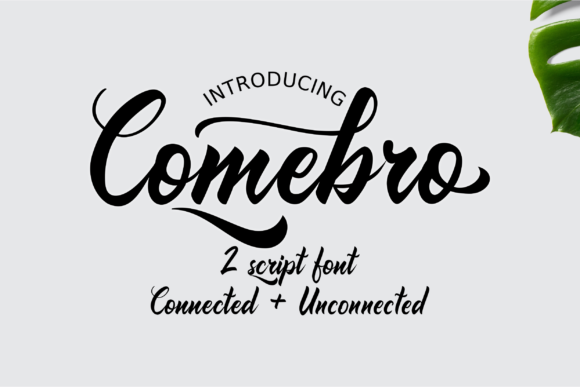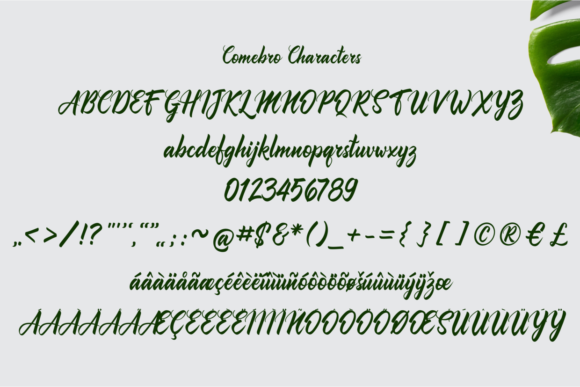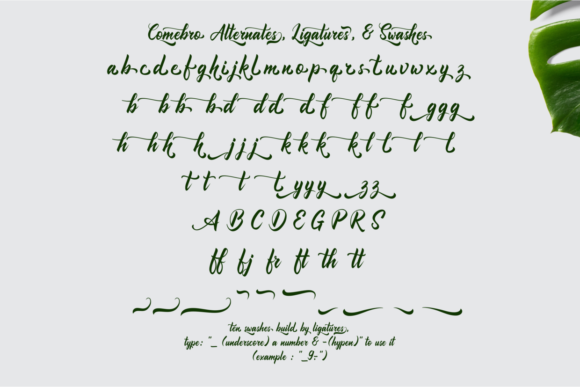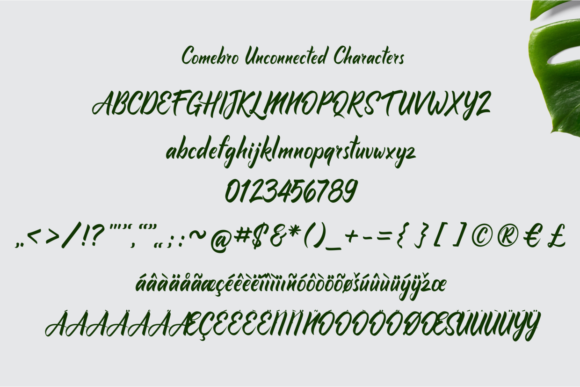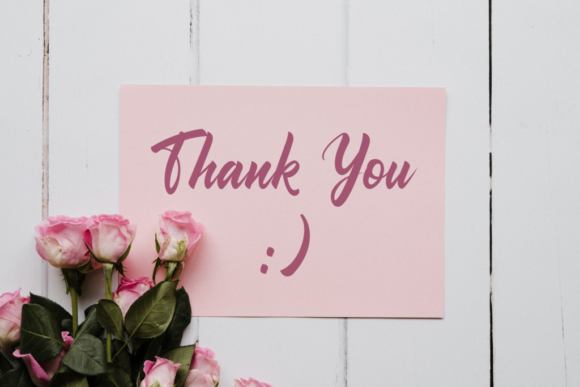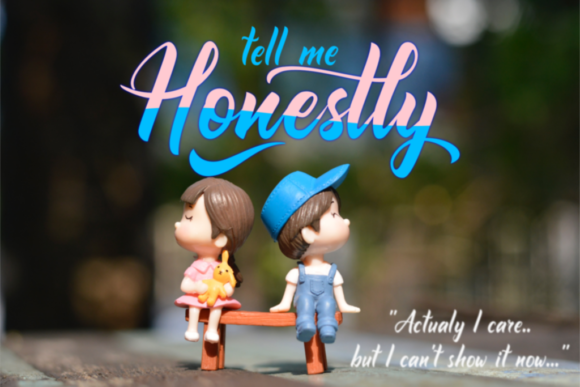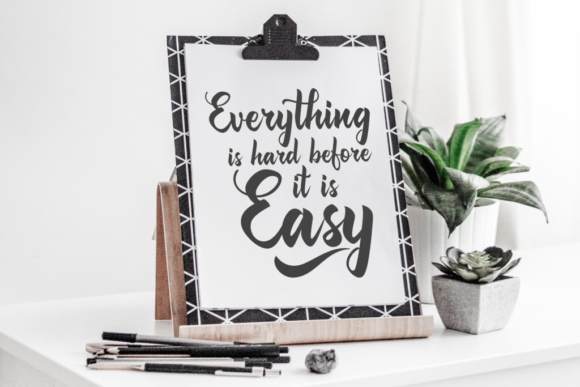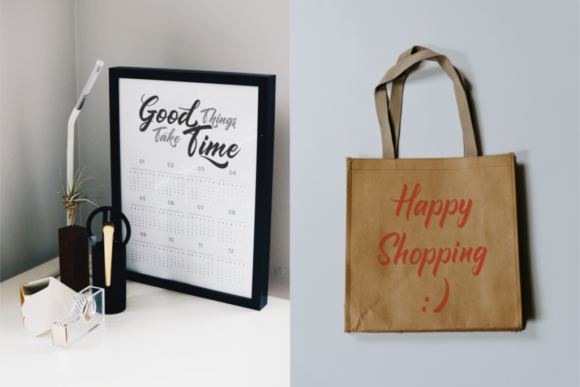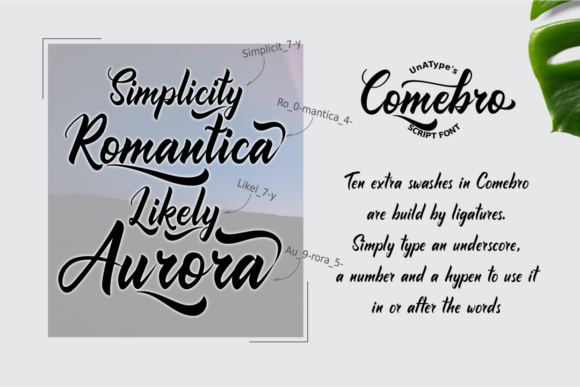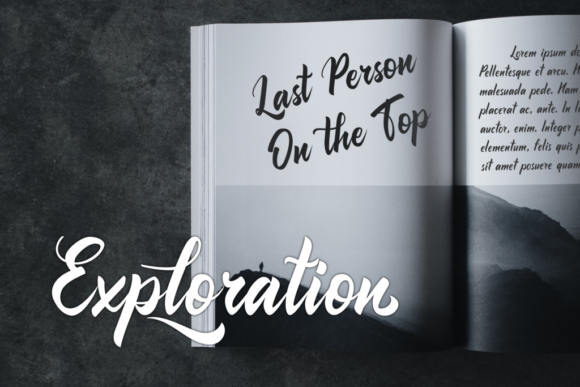
HomeScript FontsComebro Font Script Fonts Comebro Font FacebookXPinterestWhatsApp Comebro Font Poster 2 Comebro Font Poster 3 Comebro Font Poster 4 Comebro Font Poster 5 Comebro Font Poster 6 Comebro Font Poster 7 Comebro Font Poster 8 Comebro Font Poster 9 Comebro Font Poster 10 Comebro Font Poster 11 Comebro Font Poster 12 Comebro Font Poster 13 About Comebro Font Comebro is a gorgeous and unique script font with a playful feel. Fall in love with its stunning swashes! DOWNLOAD ON CREATIVE FABRICAThis font is sold and delivered by Creative Fabrica. Font Canyon may earn a commission if you buy through this link. People also explored Sheila Dorothy Dragon Font Logster Font Simple Signature Font Farmhouse Font Seathera Font Westerday Font Human Font Sherley Font 327 0 TagsComebro Font Previous articleSolistaria FontNext articleEmbroider Font LEAVE A REPLY Cancel reply Comment: Please enter your comment! Name:* Please enter your name here Email:* You have entered an incorrect email address! Please enter your email address here Website: Save my name, email, and website in this browser for the next time I comment. Personal Use Free Fake Receipt Personal Use Free Read more about this font Fakedes Personal Use Free Read more about this font Puisi Adinda Personal Use Free Read more about this font Love Story Personal Use Free Read more about this font BLOG Where to Buy American Fonts Online in 2024 Where to Buy American Fonts Online: The Ultimate Guide for 2024 Looking for the perfect American font to elevate your design projects? You're in the... Fonts That Capture the Spirit of New York City To increase your work productivity, choose the most readable fonts. The 10 Best Handwriting Fonts to Add Personality to Your Designs